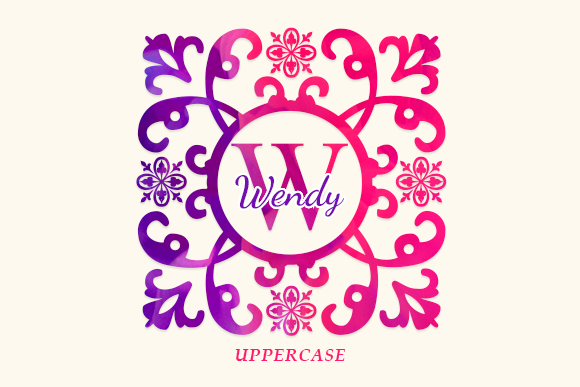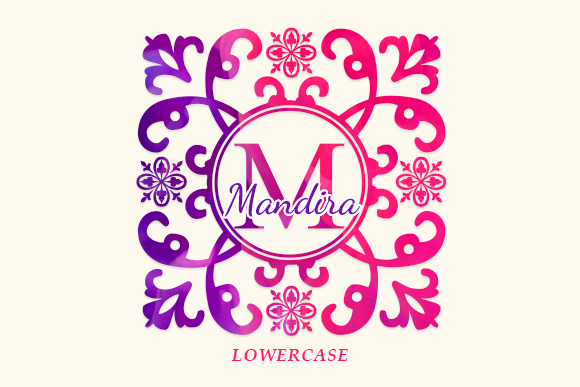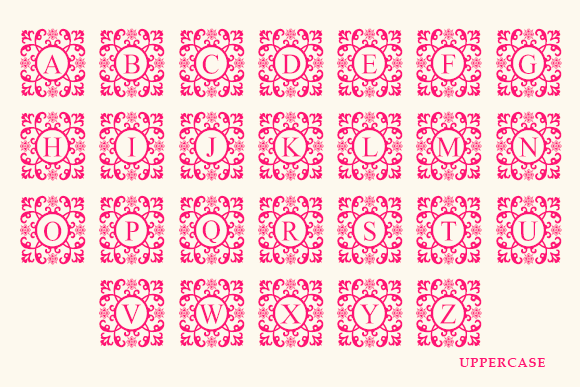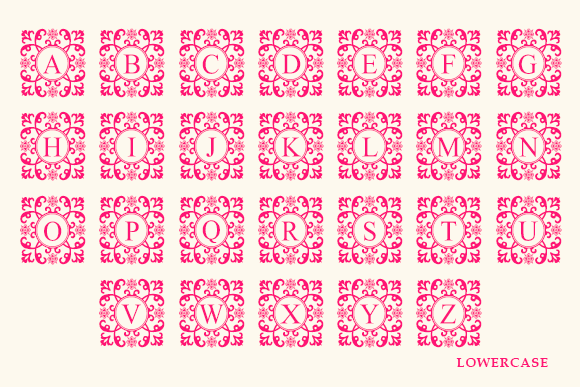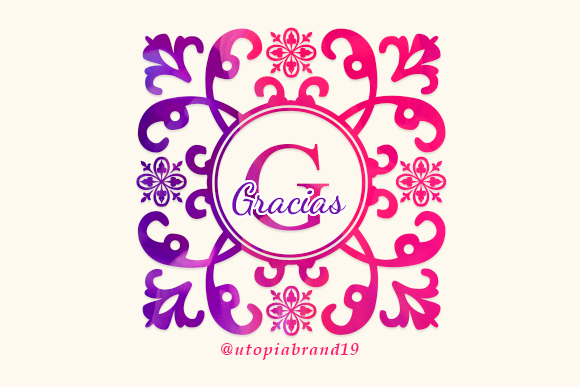
Introducing Florista Monogram Font: The Perfect Choice for Your Creative Projects
Are you a designer, crafter, or DIY enthusiast looking for a unique and charming font to elevate your creative projects? Look no further than the Florista Monogram Font! This beautiful decorative font is sure to capture your heart with its authentic feel and versatility. In this article, we’ll dive into the world of Florista Monogram Font and explore its features, uses, and benefits.
What is Florista Monogram Font?
Florista Monogram Font is a stunning decorative font designed to add a touch of elegance and sophistication to your creative projects. Its authentic feel and charm make it perfect for a wide range of applications, from wedding invitations and stationery to social media posts and greeting cards.
Key Features of Florista Monogram Font
- Unique and Charming Design: Florista Monogram Font boasts a distinctive and captivating design that will set your projects apart from the rest.
- Authentic Feel: The font’s authentic feel gives it a vintage and nostalgic touch, perfect for creating unique and eye-catching designs.
- Versatile: Florista Monogram Font can be used for a wide range of creative projects, including wedding invitations, stationery, social media posts, greeting cards, and more.
- Easily Customizable: The font is easy to customize, allowing you to adjust the size, color, and style to suit your project’s needs.
Uses of Florista Monogram Font
Florista Monogram Font is an incredibly versatile font that can be used for various creative projects, including:
- Wedding Invitations: Create beautiful and elegant wedding invitations that will set the tone for the big day.
- Stationery: Design stunning stationery, including letterheads, notebooks, and journals, that will make your correspondence stand out.
- Social Media Posts: Add a touch of elegance and sophistication to your social media posts and make them more engaging and shareable.
- Greeting Cards: Create cute and personalized greeting cards for special occasions, such as birthdays, anniversaries, and holidays.
Benefits of Using Florista Monogram Font
By using Florista Monogram Font, you’ll enjoy several benefits, including:
- Unique and Professional Designs: The font will help you create unique and professional-looking designs that will set you apart from others.
- Time-Saving: With Florista Monogram Font, you can create stunning designs quickly and efficiently, saving you time and effort.
- Easily Customizable: The font’s ease of customization means you can adjust it to suit your project’s needs, giving you more creative freedom.
Tips for Using Florista Monogram Font
To get the most out of Florista Monogram Font, follow these tips:
- Experiment with Different Sizes and Colors: Try out different sizes and colors to find the perfect combination for your project.
- Pair it with Other Fonts: Combine Florista Monogram Font with other fonts to create a unique and visually appealing design.
- Use it for Headings and Titles: Use the font for headings and titles to add a touch of elegance and sophistication to your design.
Florista Monogram Font is a charming and versatile decorative font that’s perfect for designers, crafters, and DIY enthusiasts. Its authentic feel and unique design make it ideal for a wide range of creative projects, from wedding invitations and stationery to social media posts and greeting cards. With its ease of customization and numerous benefits, Florista Monogram Font is sure to become a favorite in your design toolkit.